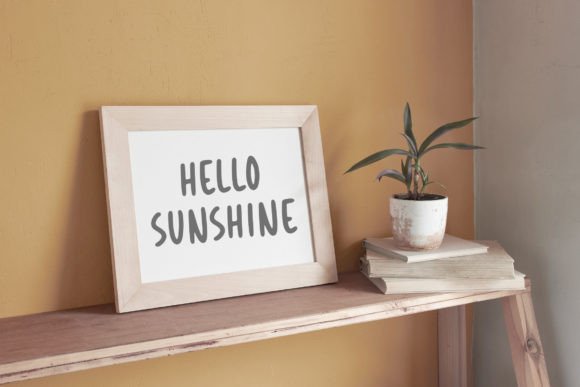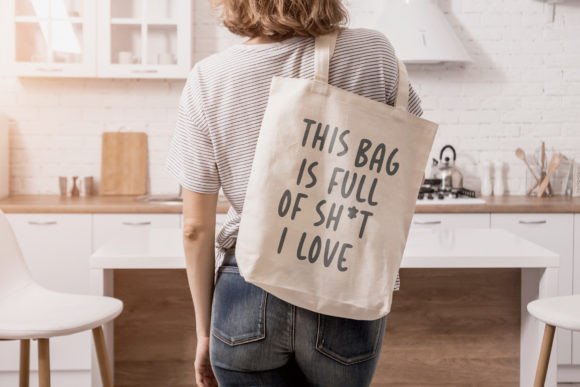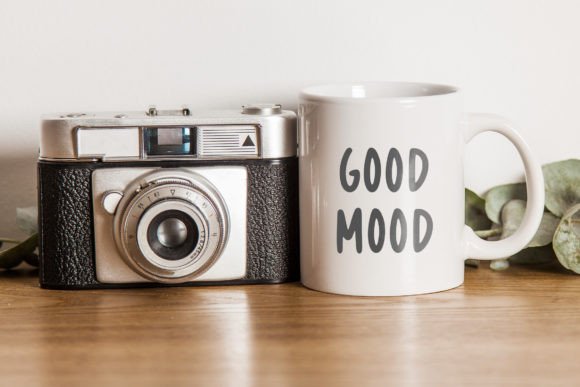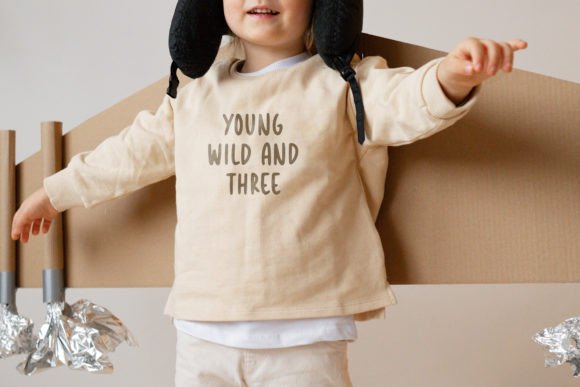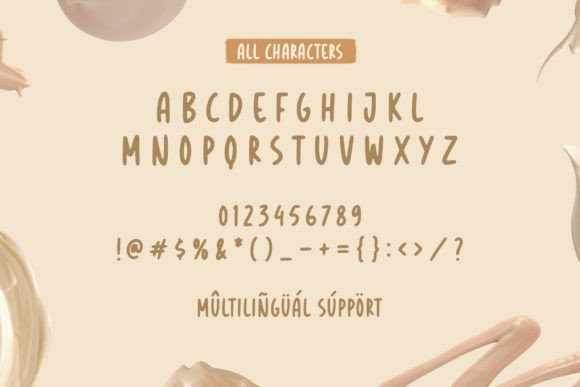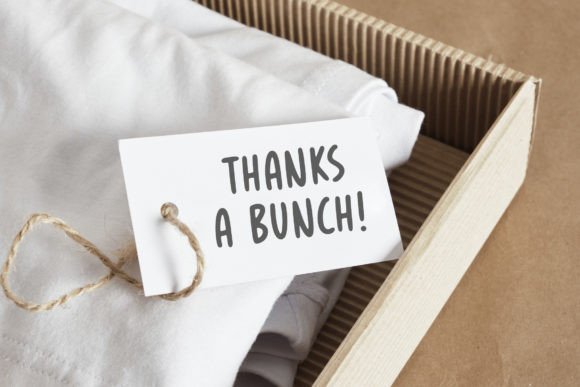
Introducing the Creamy Dreams Font, a sweet and friendly handwritten font that’s sure to bring a smile to your face and a touch of warmth to your designs. This unique font is designed to be versatile and adaptable, making it the perfect choice for a wide range of projects, from invitations and greeting cards to logos and branding materials. Whether you’re a seasoned designer or just starting out, the Creamy Dreams Font is a valuable addition to your toolkit.
Creamy Dreams Font Key Features
- Unique Characteristics: Features a unique, dreamy aesthetic with flowing curves and subtle texture, ideal for creative projects that require a touch of elegance and sophistication.
- Language Support: Supports a wide range of languages, including Latin, Cyrillic, and Greek alphabets, making it suitable for global applications.
- Style Options: Includes multiple font styles, including Regular, Italic, Bold, and Bold Italic, allowing for versatility and flexibility in design applications.
Designer Review: Creamy Dreams Font
At first glance, the Creamy Dreams Font appears to be a pleasant addition to any design project. The ✨ soft, rounded edges and gentle curves give it a friendly and approachable feel.
Here are some of the things that work well in this font:
- ✨ Unique aesthetic that sets it apart from more traditional fonts
- ✨ Good for use in designs that require a touch of whimsy or playfulness
- ✨ Suitable for a wide range of applications, from logos to body text
- ⚠️ Limited character set, which may cause issues in certain languages or applications
- ⚠️ May not be suitable for use in formal or professional settings
- ⚠️ Can be difficult to read at smaller font sizes
Overall, I think the Creamy Dreams Font is a fun and creative addition to any design project. While it may have some limitations, its unique aesthetic and versatility make it a great choice for designers looking to add a touch of personality to their work.
Practical Application Guide for Creamy Dreams Font
For a more elegant look, pair Creamy Dreams with a light background and a subtle texture.
For a professional look, use Creamy Dreams with a bold, contrasting color and a clean layout.
For a creative look, pair Creamy Dreams with a bright background and a playful texture.
Creamy Dreams Font is perfect for:
- Blogging and article writing
- Graphic design and branding
- Food and fashion photography Alternatives to Creamy Dreams Font
- Use the font for the journal’s title and headings to create a sense of elegance and sophistication.
- Combine the font with hand-drawn illustrations and watercolor effects to add a touch of whimsy and personality.
- Choose a soft, pastel color scheme to complement the font’s creamy texture and create a dreamy ambiance.
- Use a mix of bold and cursive lines to create visual interest and add texture to the illustrations.
- Experiment with different brush styles and textures to add depth and dimension to the watercolor effects.
- Keep the color palette simple and muted to let the Creamy Dreams Font take center stage.
- Use the font for the invitation’s title and headings to create a sense of whimsy and romance.
- Combine the font with hand-drawn illustrations and watercolor flowers to add a touch of playfulness and personality.